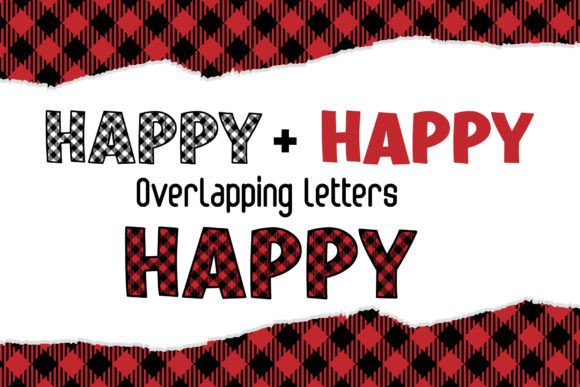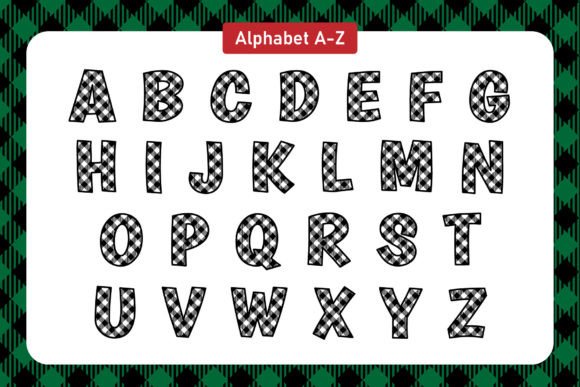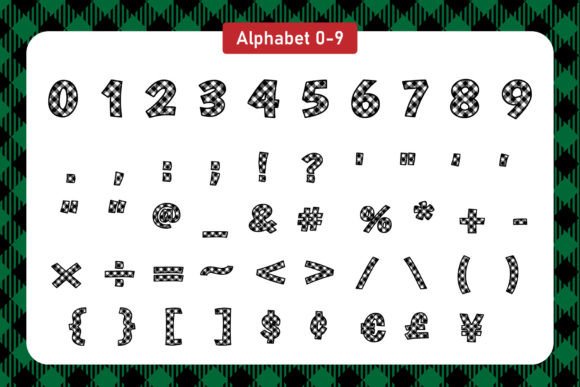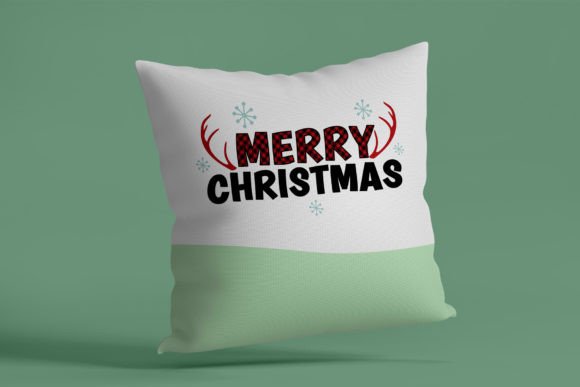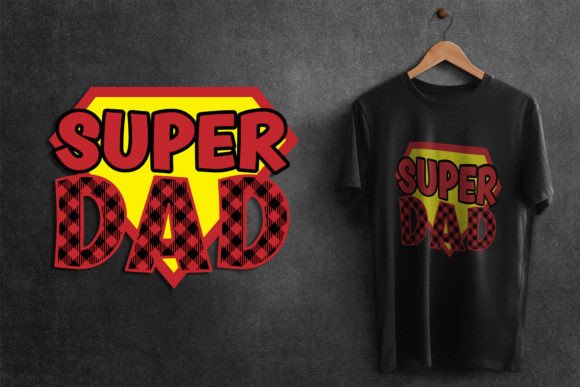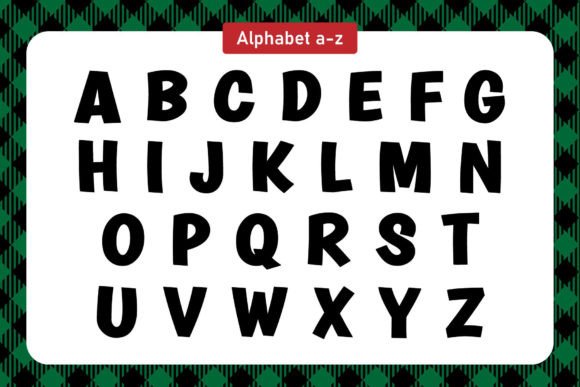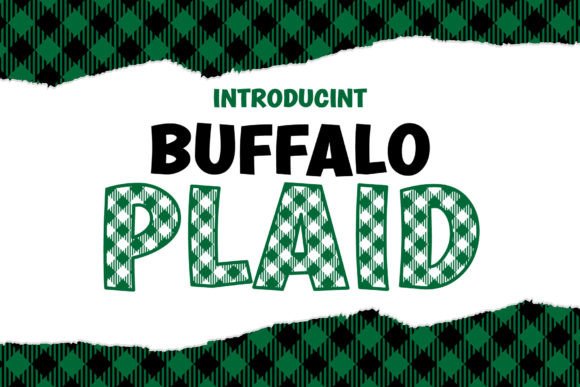
Introducing the Buffalo Plaid Font: A Timeless and Versatile Decorative Font
Are you looking for a font that can add a touch of warmth and coziness to your designs? Look no further than the Buffalo Plaid Font! This cool and friendly decorative font is perfect for a wide range of projects, from Christmas and fall decorations to blog posts, logos, branding, ads, invitations, greeting cards, planners, photo albums, and more.
What Makes Buffalo Plaid Font So Special?
The Buffalo Plaid Font is a unique and eye-catching font that features a classic plaid pattern reminiscent of traditional buffalo plaid. Its distinctive design makes it stand out from other fonts, adding a touch of rustic charm and whimsy to any project. Whether you’re a designer, crafter, or DIY enthusiast, this font is sure to become a favorite in your collection.
The versatility of the Buffalo Plaid Font is one of its most appealing features. It can be used in a wide range of design projects, including:
- Christmas projects: Add a festive touch to your holiday designs, such as gift tags, cards, and decorations.
- Fall projects: Bring the warmth and coziness of autumn to your designs, including invitations, greeting cards, and photo albums.
- Blog posts: Use the Buffalo Plaid Font to add a touch of personality to your blog posts, making them more engaging and visually appealing.
- Logos and branding: Create a unique and memorable brand identity with this distinctive font.
- Ads and marketing materials: Grab attention with this eye-catching font, perfect for ads, flyers, and brochures.
- Invitations and greeting cards: Add a personal touch to your invitations and greeting cards, making them extra special.
- Planners and organizers: Use the Buffalo Plaid Font to add a touch of whimsy to your planners, journals, and organizers.
- Photo albums: Create beautiful and personalized photo albums with this charming font.
Why You’ll Love the Buffalo Plaid Font
The Buffalo Plaid Font is more than just a decorative font – it’s a valuable asset to your design library. Here are just a few reasons why you’ll love it:
- High-quality design: The Buffalo Plaid Font features a high-quality design that’s both visually appealing and legible.
- Versatile: Use it in a wide range of design projects, from digital to print.
- Unique: Stand out from the crowd with this distinctive and eye-catching font.
Tips for Using the Buffalo Plaid Font
To get the most out of the Buffalo Plaid Font, here are a few tips:
- Experiment with different colors: Try out different color combinations to find the perfect look for your design.
- Mix and match: Combine the Buffalo Plaid Font with other fonts and design elements to create a unique look.
- Use it sparingly: Use the font sparingly to add emphasis and visual interest to your design.
The Buffalo Plaid Font is a timeless and versatile decorative font that’s perfect for designers, crafters, and DIY enthusiasts. With its unique plaid design and endless design possibilities, it’s sure to become a favorite in your collection. Whether you’re working on a Christmas project, a fall decoration, or a blog post, this font is sure to add a touch of warmth and coziness to your design. So why wait? Add the Buffalo Plaid Font to your design library today and start creating!